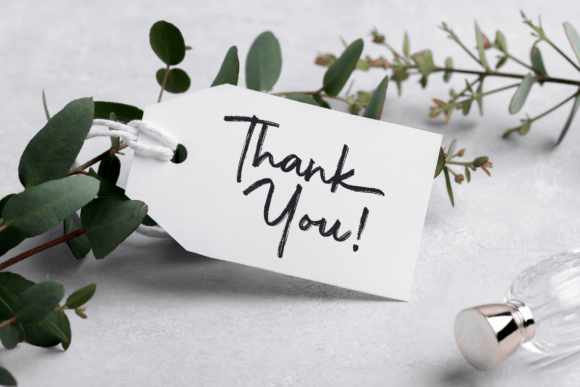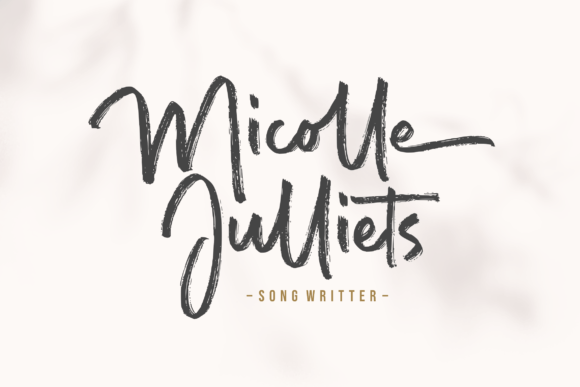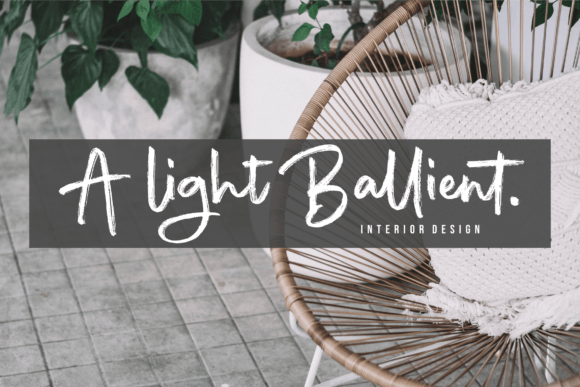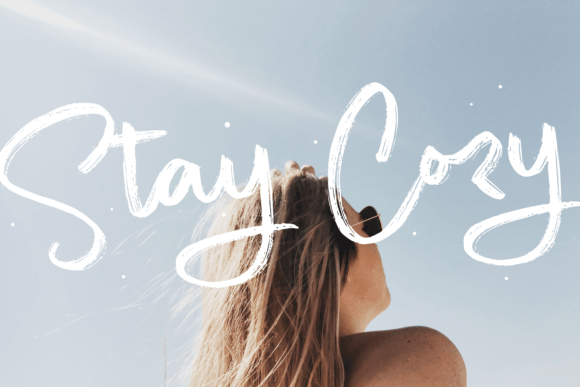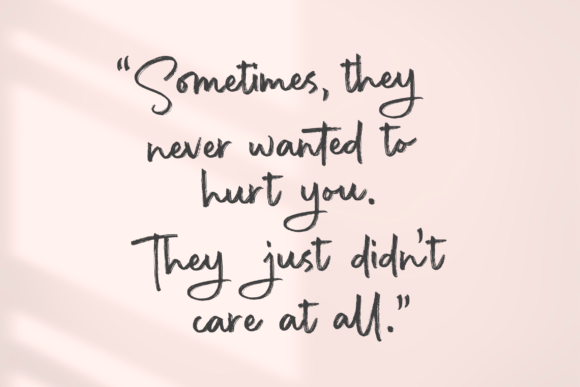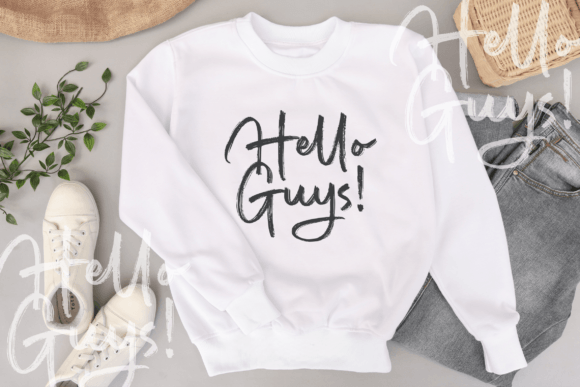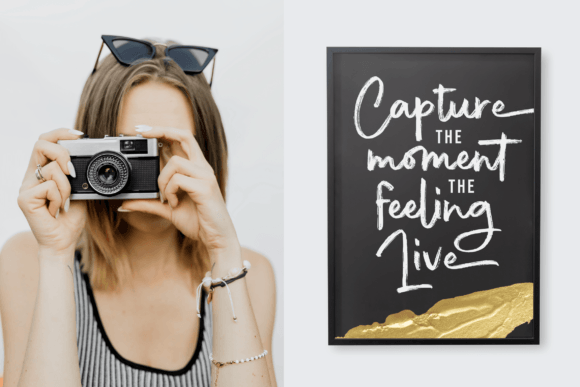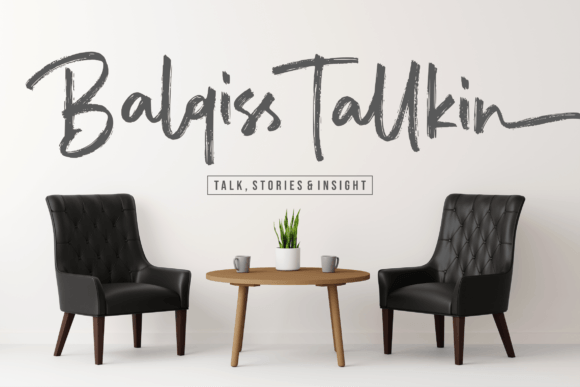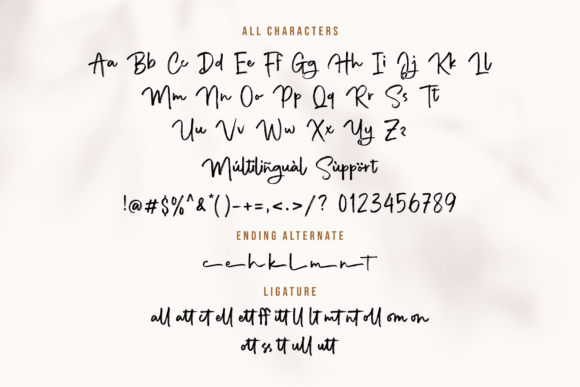
Glathope Font
About Glathope Font
“Proudly Present, Glathope” is a captivating handwritten brush font that adds a touch of raw energy and creativity to any design project. Its natural and dynamic strokes make it an excellent choice for a wide variety of applications, enhancing the visual appeal of your work with its organic charm.
This font’s versatility shines through in numerous design contexts. It is especially well-suited for product packaging, where it can infuse your packaging designs with a sense of authenticity and handmade craftsmanship. For branding projects, “Glathope” adds a distinctive and personalized touch, making your brand memorable and unique.
In the realm of magazines and social media, this font brings a fresh and modern vibe, making your content visually appealing and engaging. Its handwritten style adds character and warmth to your words, creating a strong emotional connection with your audience. Additionally, “Glathope” can enhance wedding-related materials, adding a touch of romance and informality to invitations, thank you cards, and more.
One of the remarkable qualities of “Glathope” is its ability to stand out against various backgrounds. Its bold strokes ensure that your words are visible and impactful, making it suitable for designs where text needs to be prominently displayed above vibrant or complex backgrounds.
Embrace the artistic flair of “Glathope” in your design projects, and let its natural, handwritten charm elevate your work. Whether you’re designing packaging, branding materials, magazines, social media content, or wedding invitations, this font will add an authentic and creative touch, making your designs truly stand out.